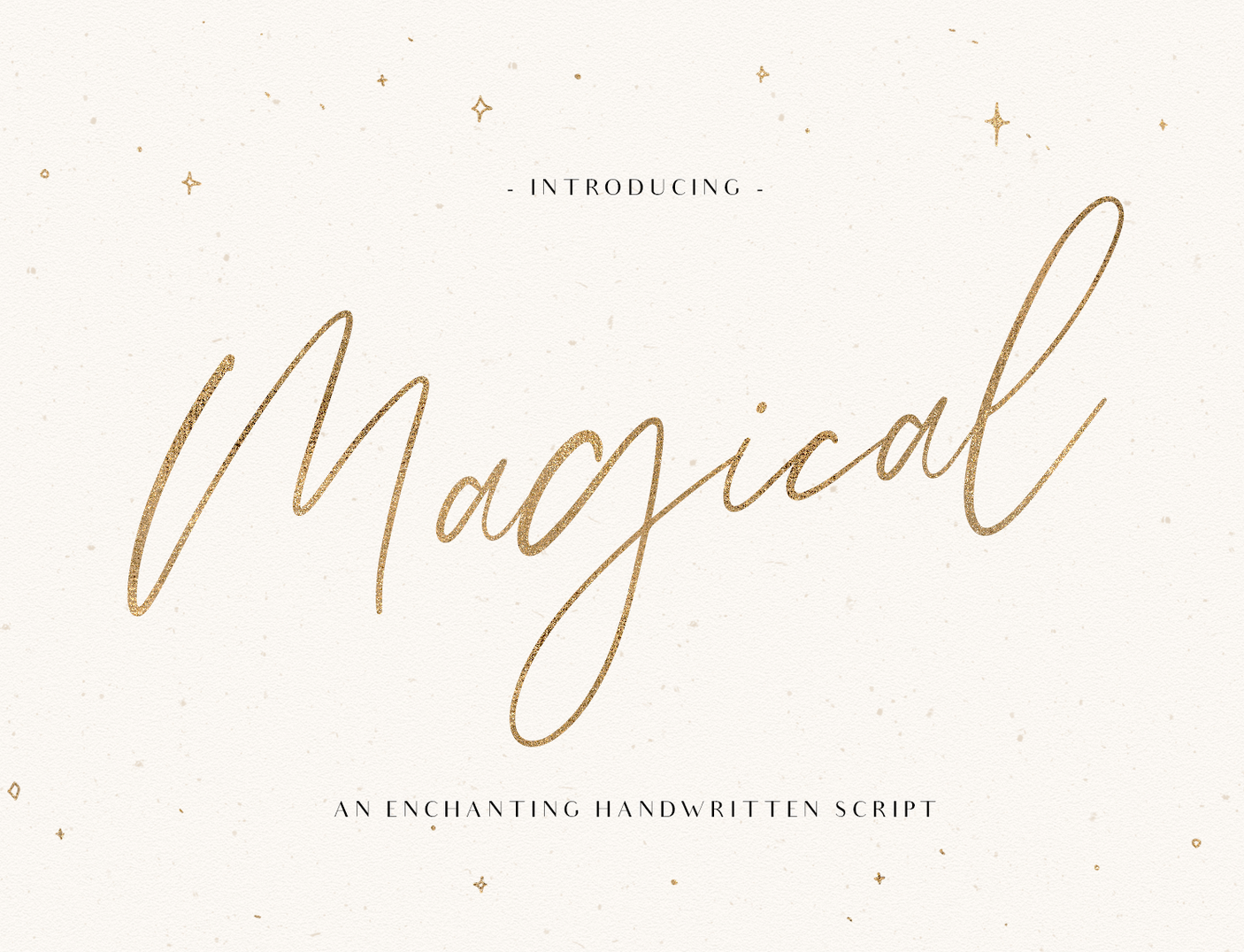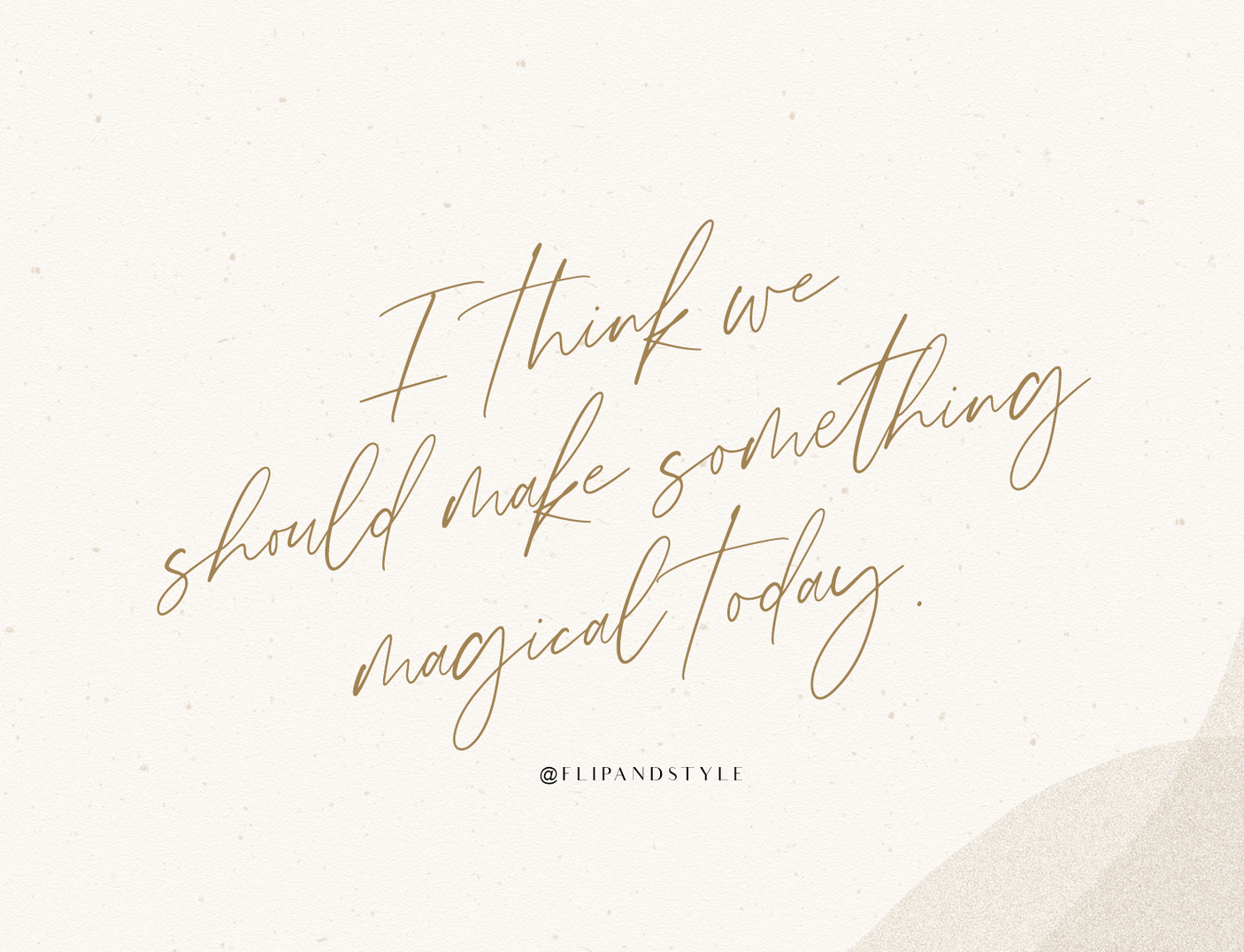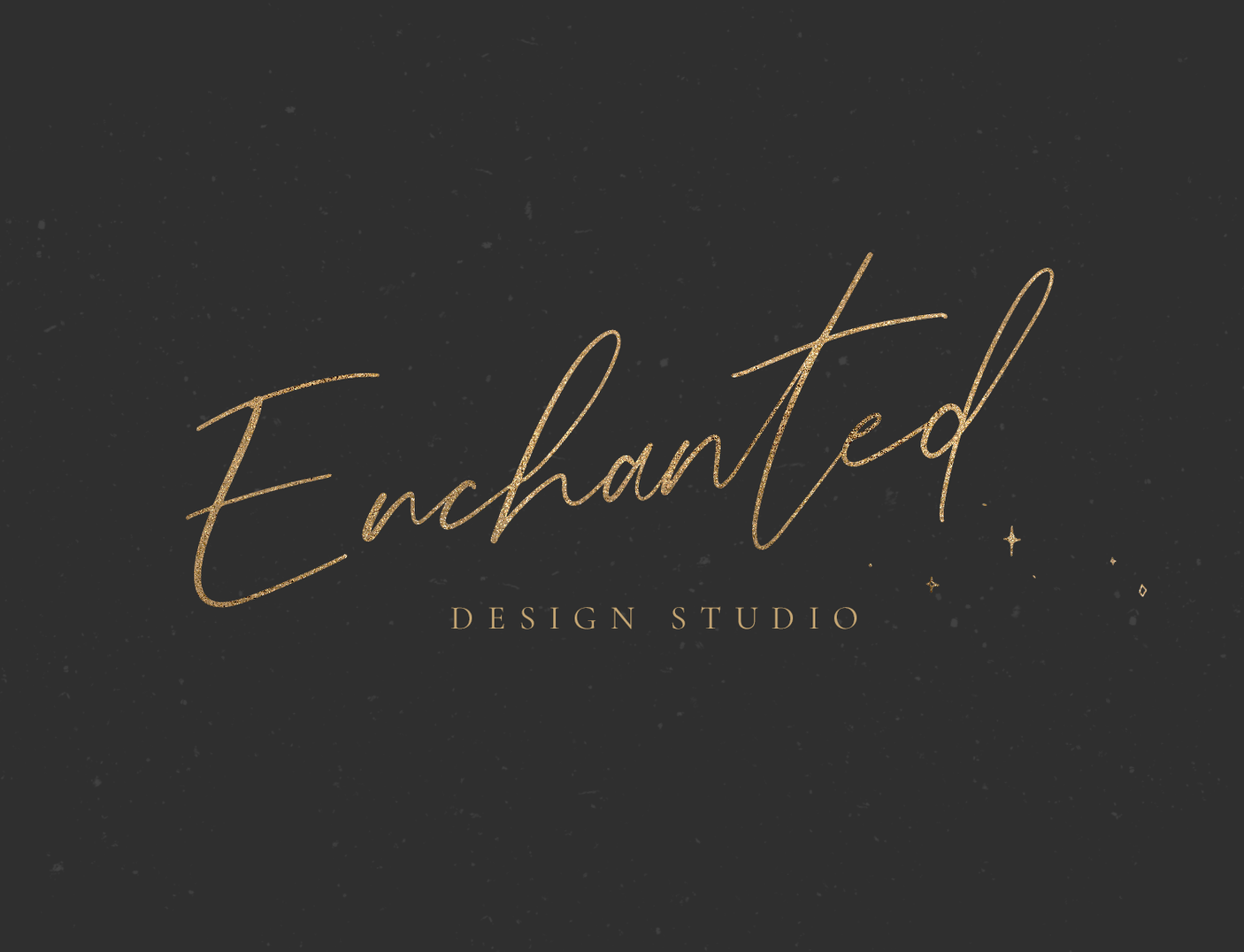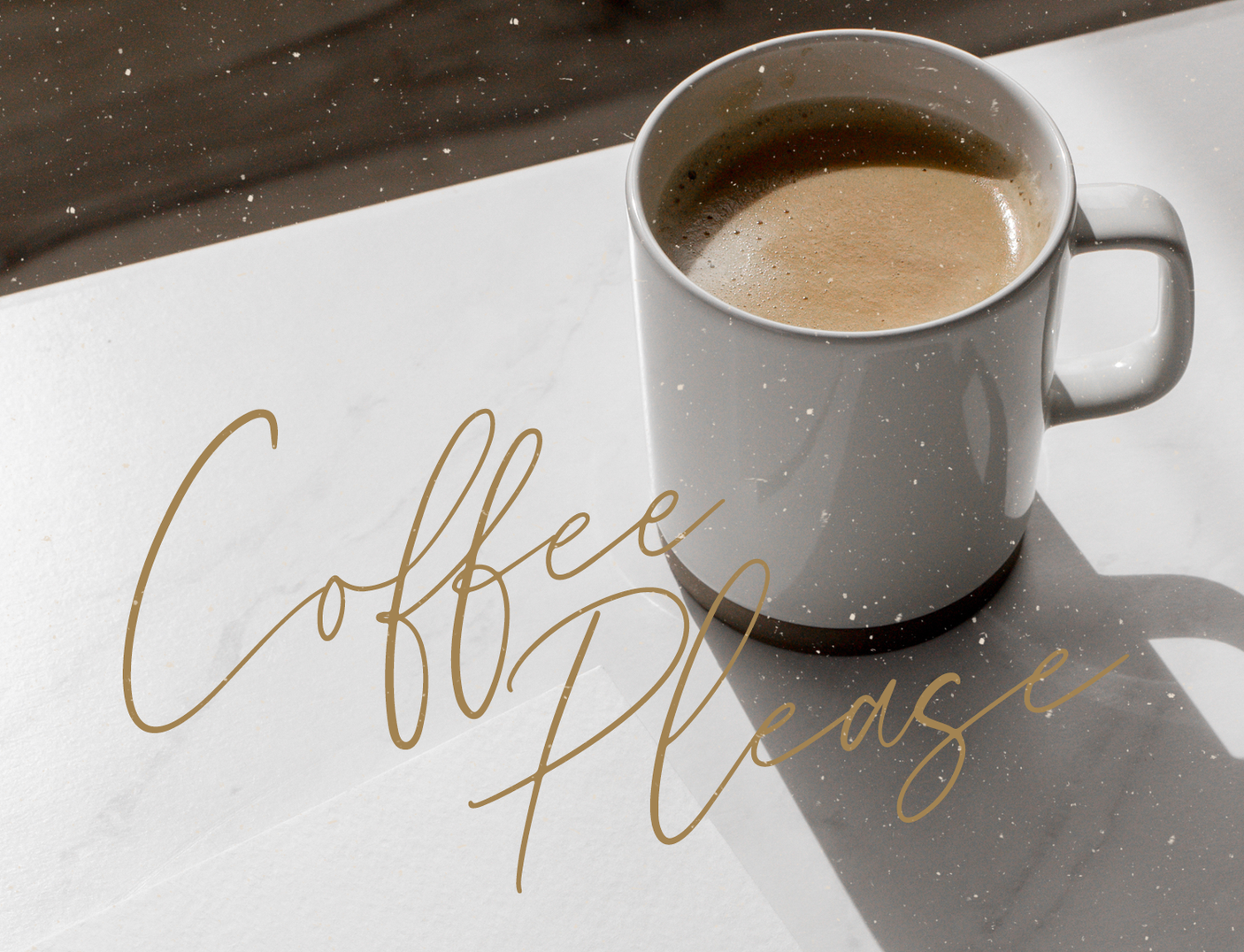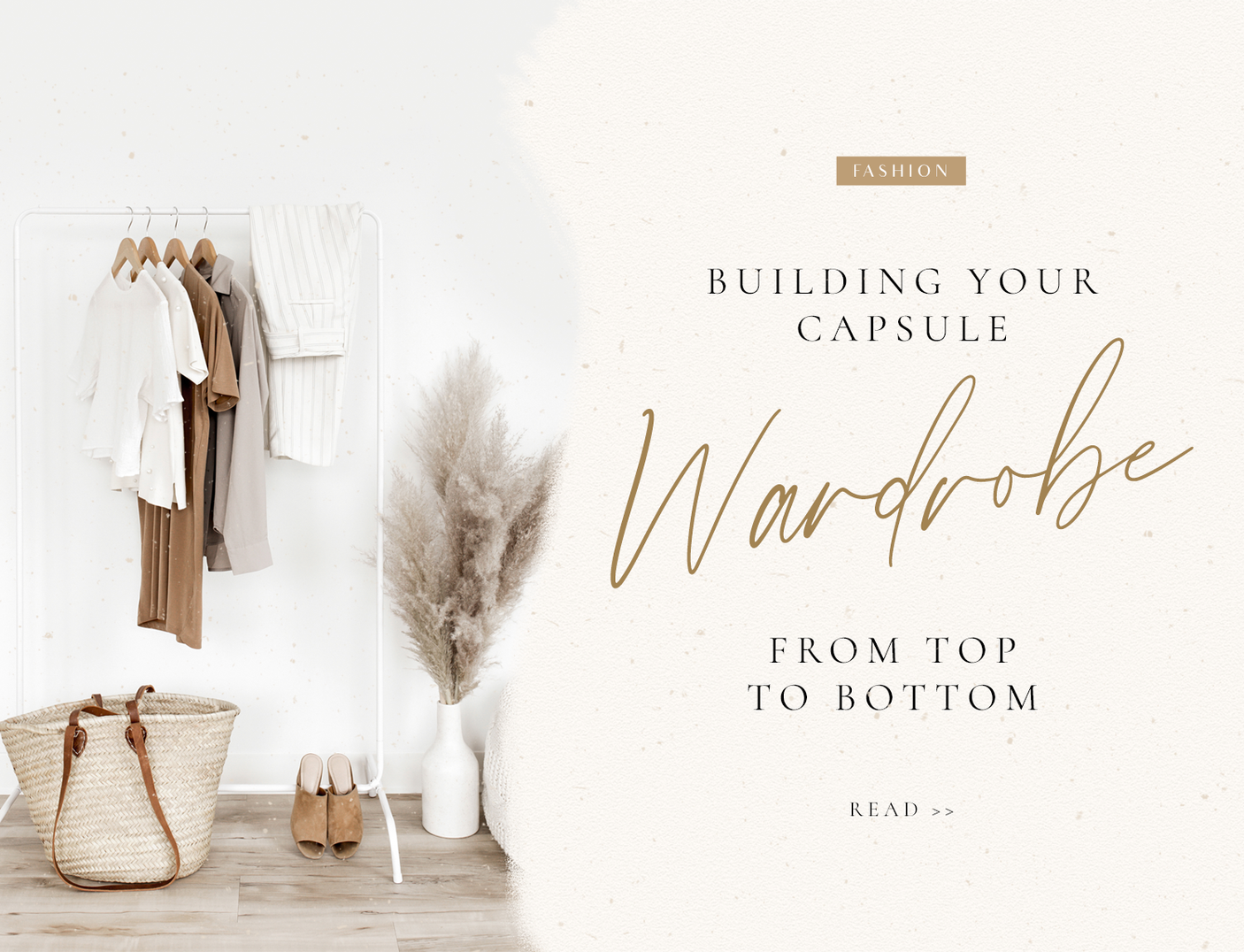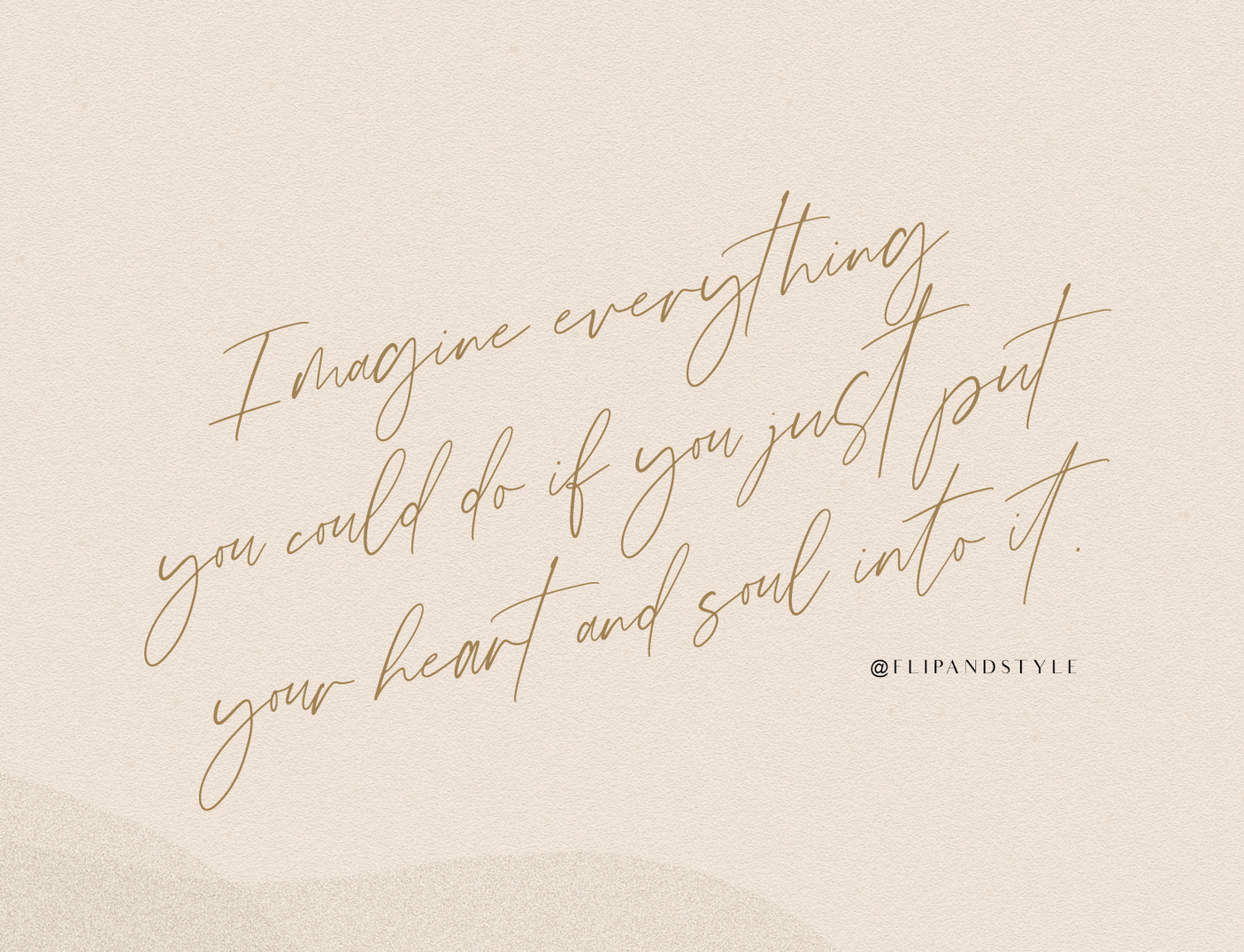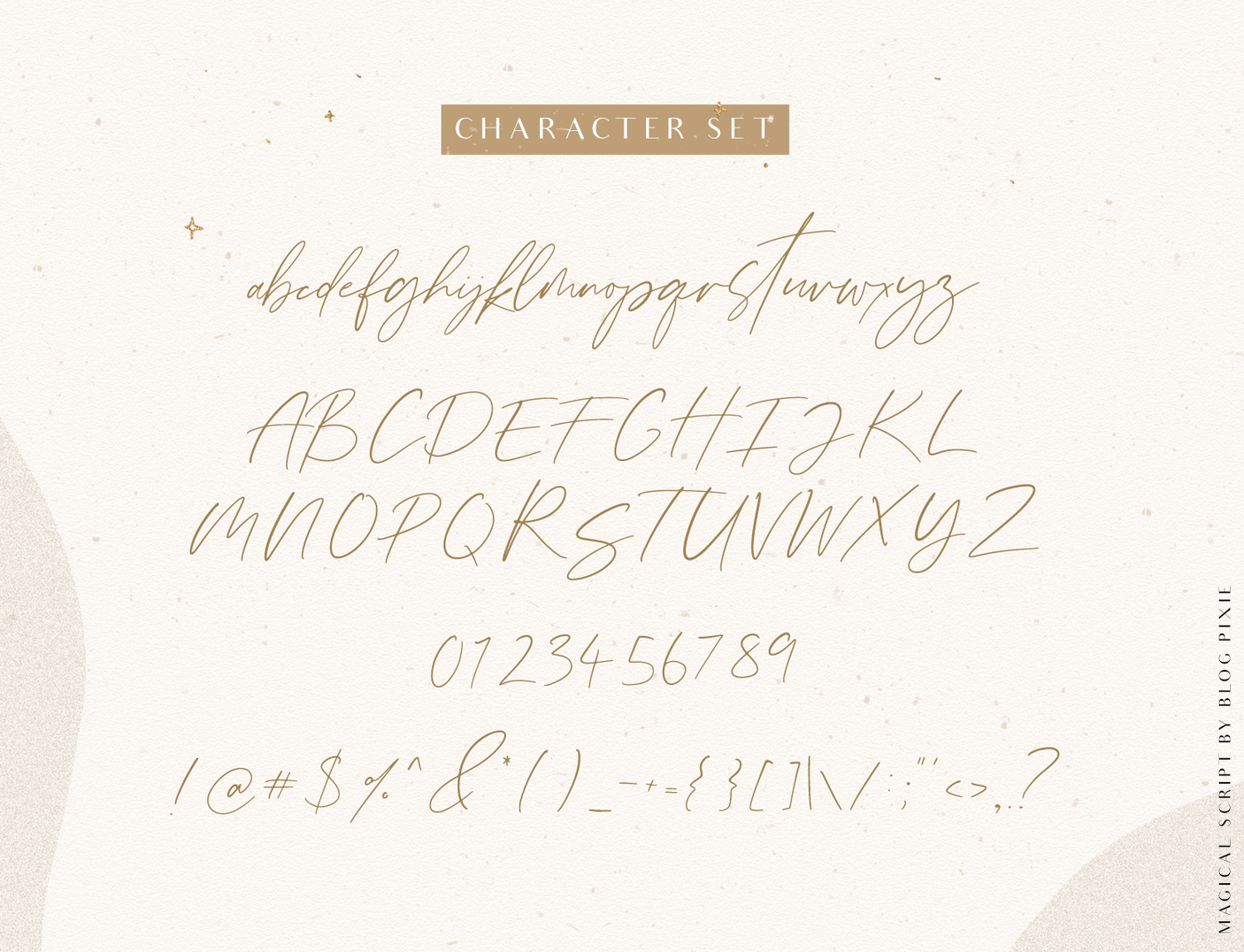
Magical Font
Magical script font is an enchanting handwritten font to download for personal and commercial use.
In a scattered handwriting style, it’s perfect to add a flourishing hit of modern spark to any creative project.
Use Magical script for quotes, invitations, stationery, print design, logos, magazine, eBooks and more.